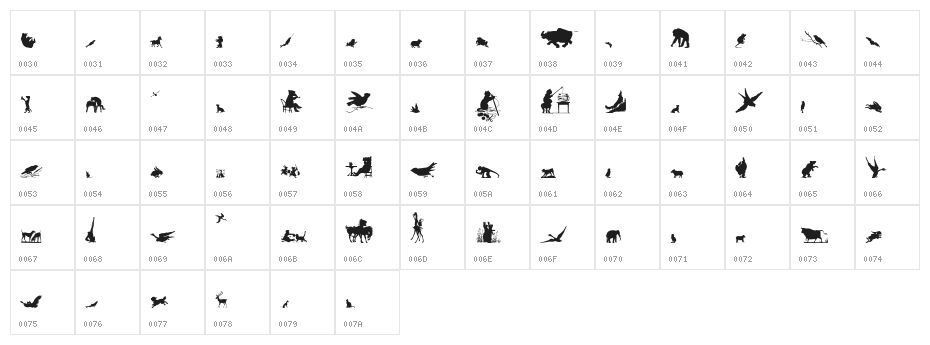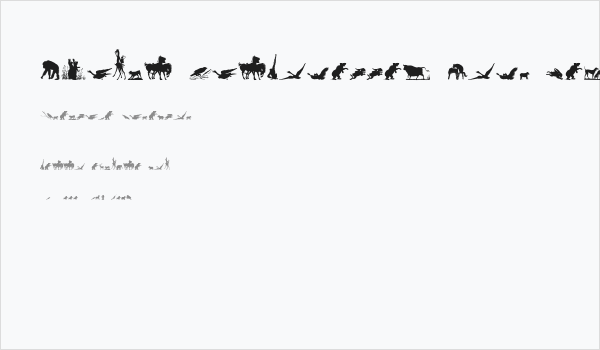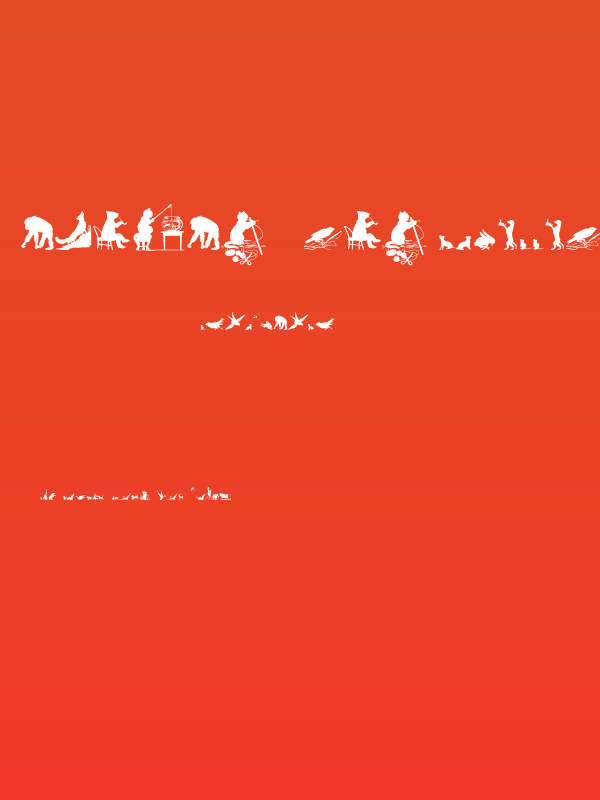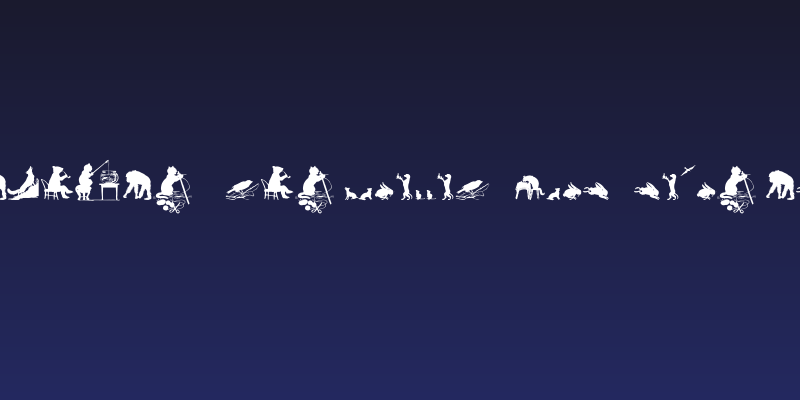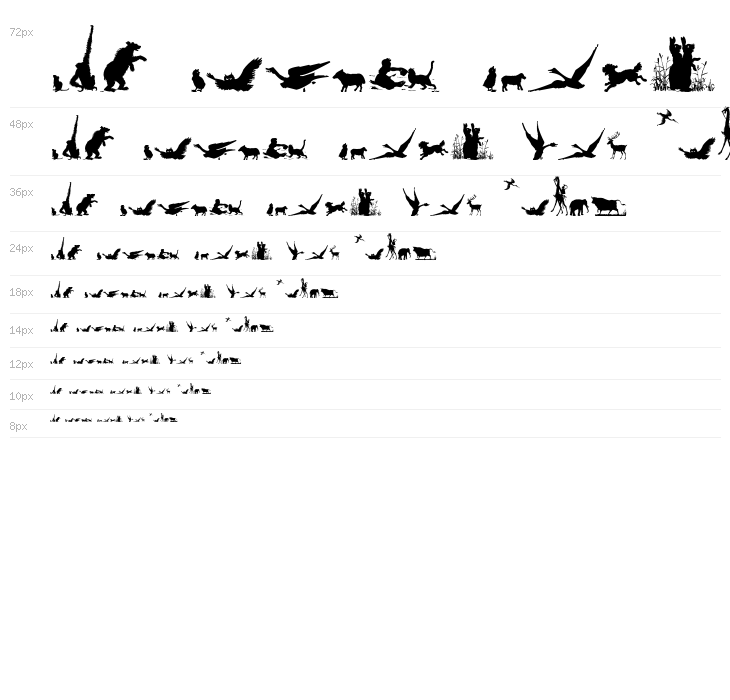
Animal Silhouettes Four Regular Font
Animal Silhouettes Four Regular Description
A decorative font composed of various animal and human silhouettes, each glyph representing a distinct figure or scene in solid black with no internal detail. The characters are highly illustrative and non-traditional, focusing on recognizable shapes rather than standard letterforms.
| Overall Style | Decorative, Playful, Illustrative |
| Use Case | Logos, Posters, Themed Headlines, Educational Graphics |
| Proposed Projects | Children's books, educational materials, posters, themed event invitations, animal-related branding, creative art projects. |